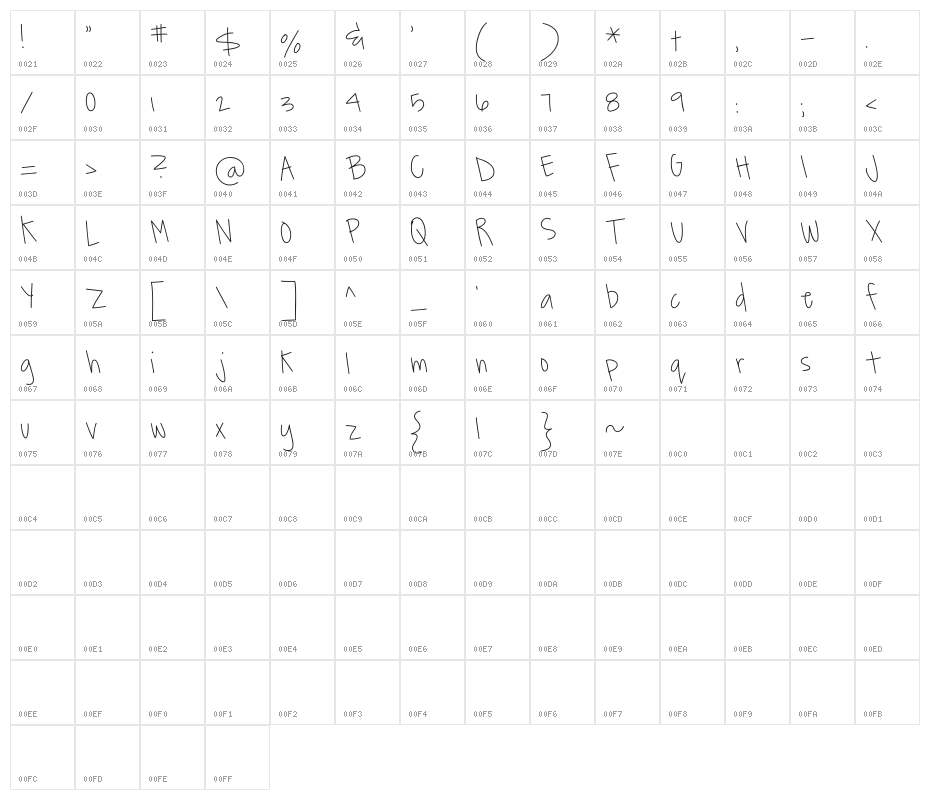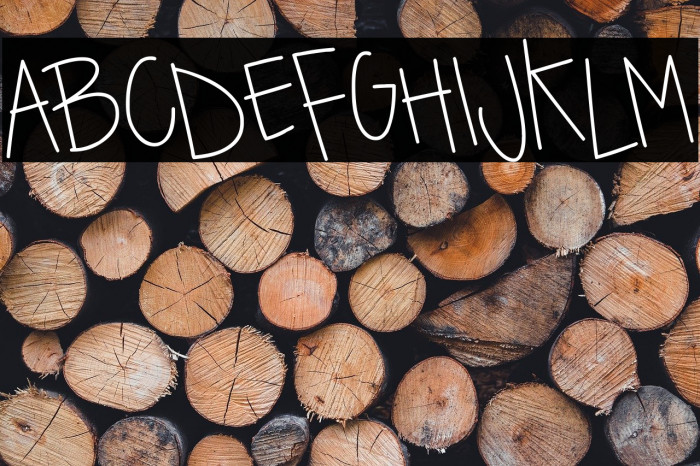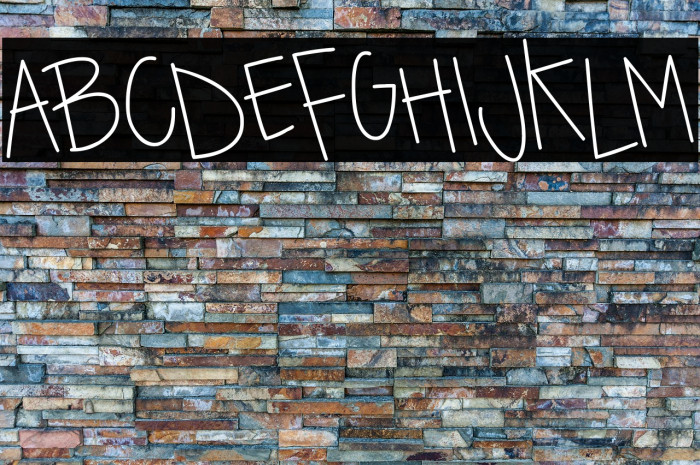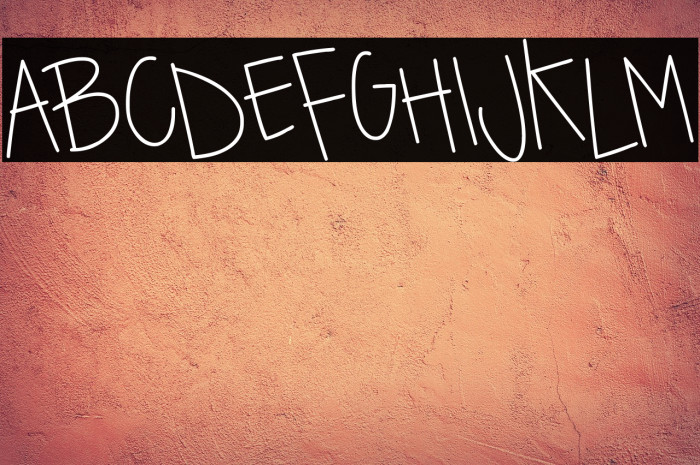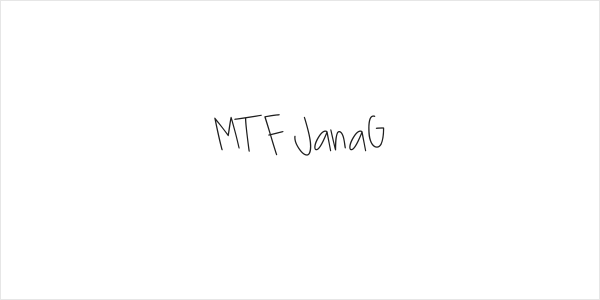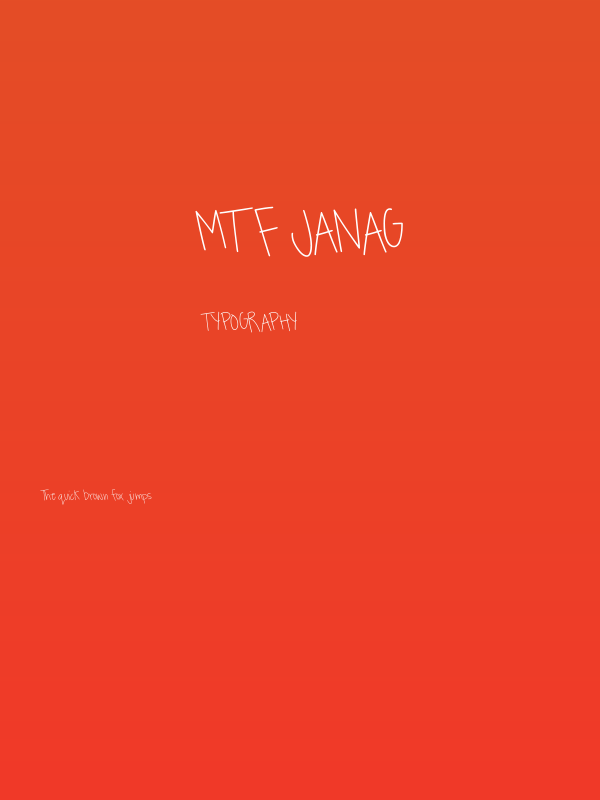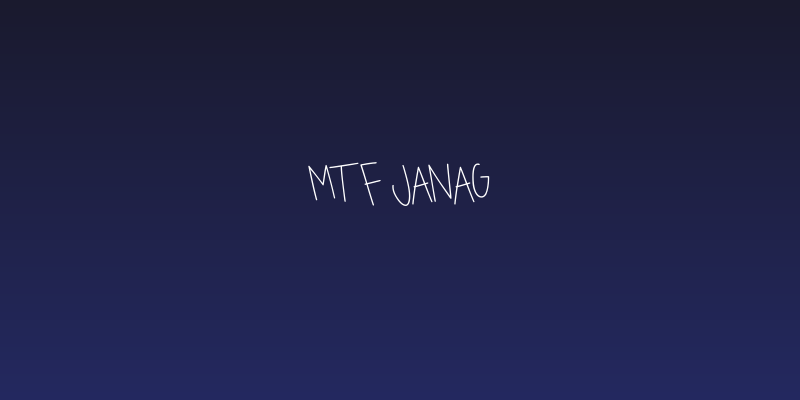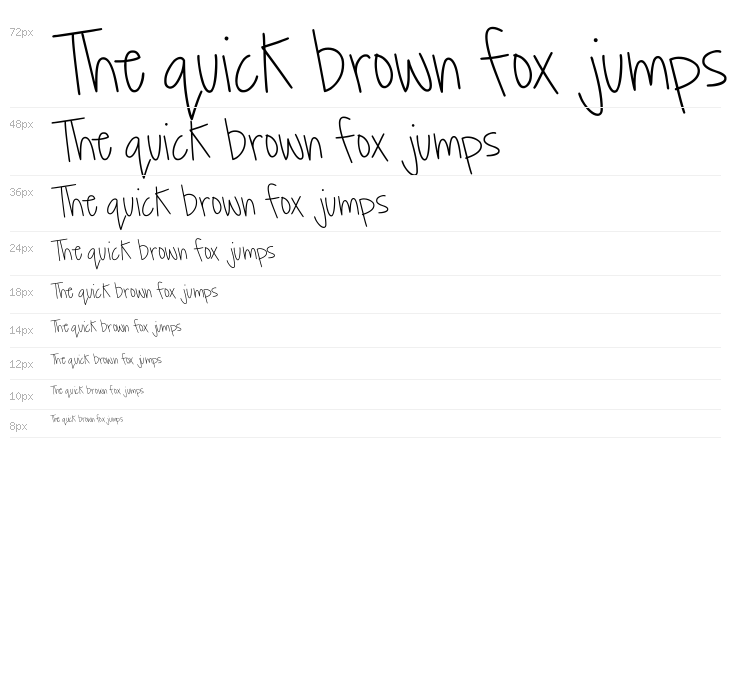
MTF JanaG Font
MTF JanaG Description
This font features a playful and casual handwritten style, characterized by its irregular and slightly tilted letterforms. The strokes are consistent in thickness, giving it a uniform appearance despite its informal nature. The uppercase letters are tall and narrow, while the lowercase letters are more rounded and open, creating a friendly and approachable look. Numbers and special characters maintain the same whimsical style, making it versatile for various uses. The overall design exudes a sense of spontaneity and creativity, perfect for projects that require a personal touch.
| Proposed Projects | Ideal for greeting cards, children's books, personal blogs, and creative branding projects. |